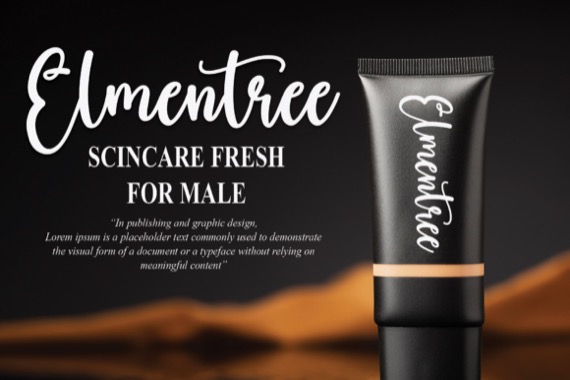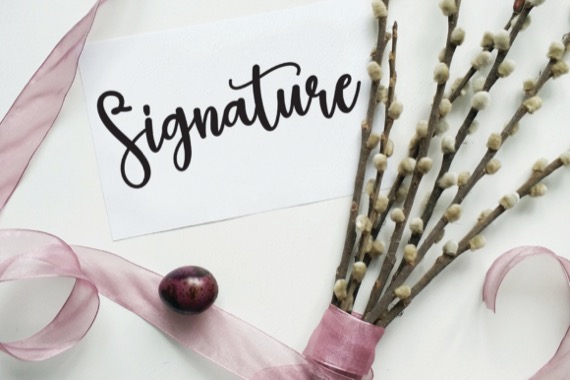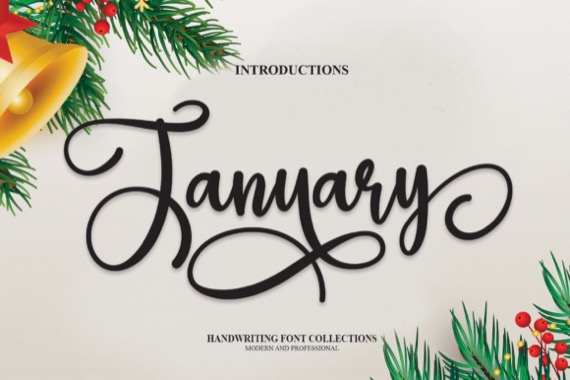
January is an elegant and beautiful handwritten display font that is suitably applied to express cool aesthetic projects. It’s perfect for wall displays, wedding invitations, social media posts, logos, advertisements, product packaging, product designs, labels, photography, watermarks, invitations, stationery, and any project that requires a handwritten touch.
January Handwritten Script Font
Designer, Publisher: Roronoa zoro.S.P.D